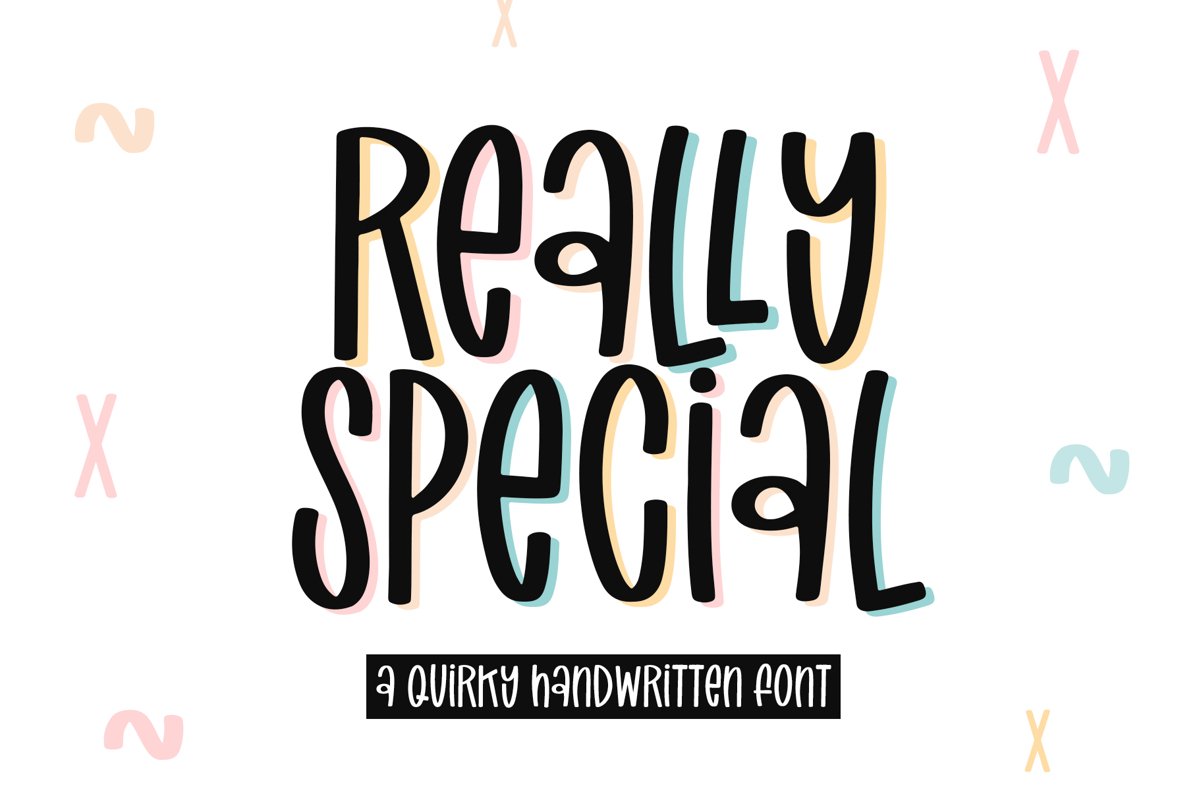
Really Special is a fun and quirky handwritten font!
This font is perfect for quotes, shirt designs, websites, branding, children's designs, svg designs, blogs, logos, invitations and more!